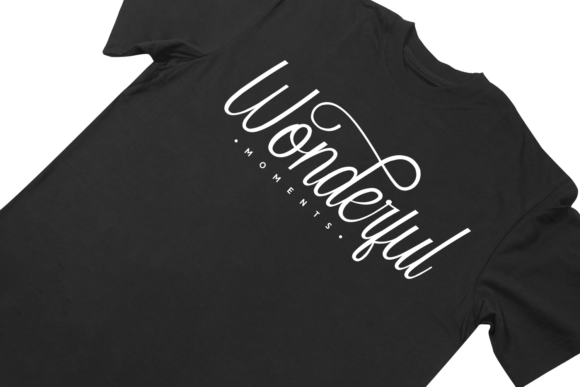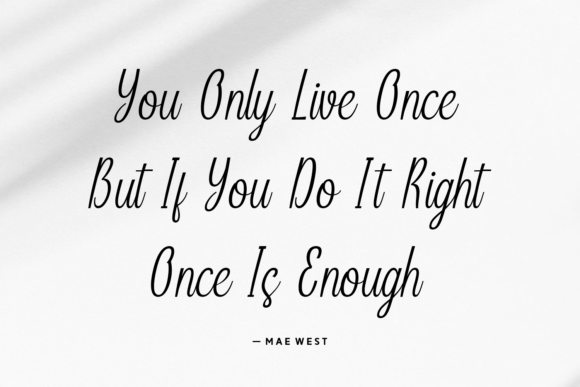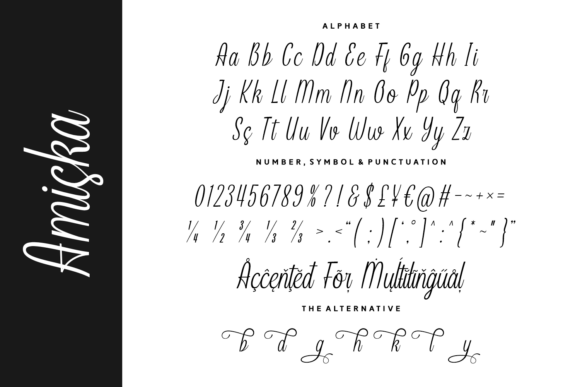
Amiska Font
Amiska is a refined modern script font that blends clean sophistication with graceful strokes. Designed with a contemporary calligraphic touch, it features smooth transitions, elegant swashes, and an ultra-legible structure—perfect for upscale branding, minimalist logos, invitations, and editorial headlines. Amiska brings a professional yet personal flair to your typography, making it a top choice for creatives seeking elegance without excess.